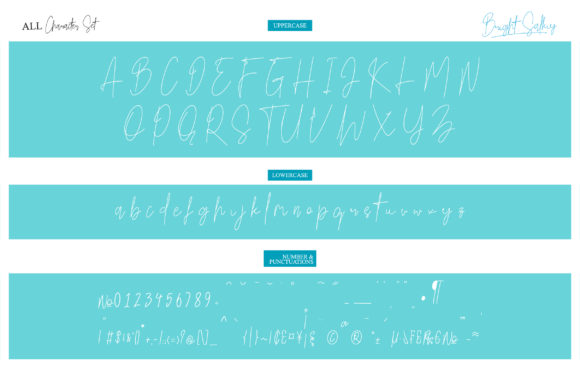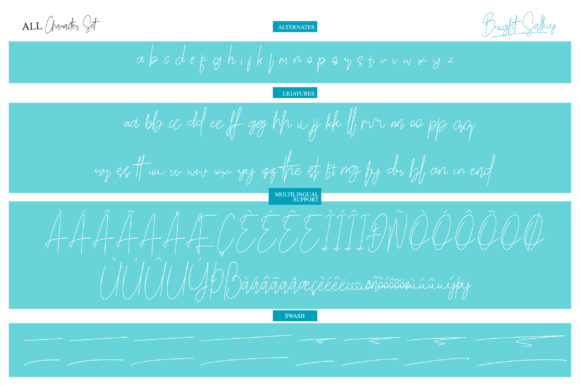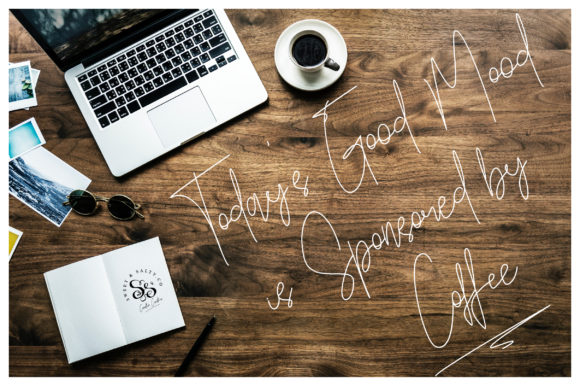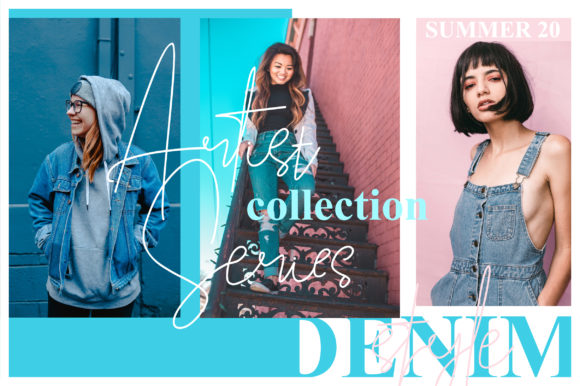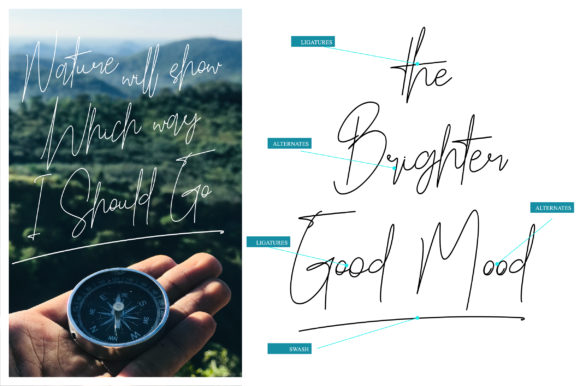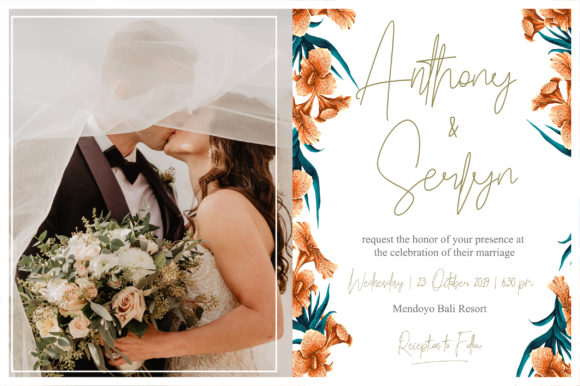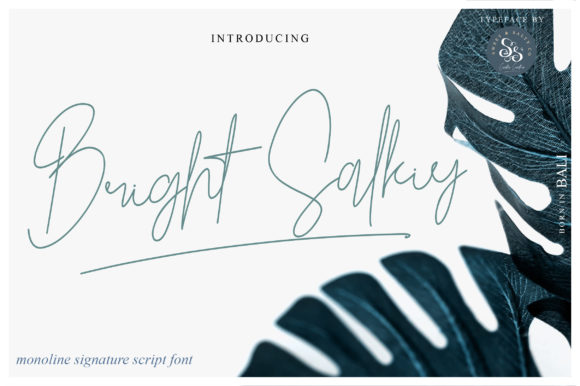
Introducing Bright Salkiy Font: A Magical Script Font with a Touch of Elegance
In the world of typography, fonts play a crucial role in conveying the tone and personality of a design. For designers and crafters, finding the perfect font can be a daunting task. However, if you’re looking for a font that exudes timeless elegance and authentic calligraphy, look no further than Bright Salkiy Font. In this article, we’ll dive into the features and benefits of Bright Salkiy, and explore why it’s the perfect font for making original and outstanding designs.
What is Bright Salkiy Font?
Bright Salkiy is a magical script font carefully crafted with a touch of elegance. This beautiful font combines the best of both worlds – timeless elegance and authentic calligraphy. With its incredibly classic style, Bright Salkiy is sure to add a touch of sophistication to any design. Yet, despite its classic feel, it still maintains a friendly and approachable tone, making it perfect for a wide range of design projects.
Key Features of Bright Salkiy Font
So, what makes Bright Salkiy font stand out from the rest? Here are some of its key features:
- Timeless Elegance: Bright Salkiy boasts a classic style that never goes out of fashion. Its elegant strokes and beautiful letterforms make it perfect for designs that require a touch of sophistication.
- Authentic Calligraphy: With its authentic calligraphy feel, Bright Salkiy adds a personal touch to any design. Its flowing strokes and cursive letterforms give it a unique and distinctive look.
- Friendly Feel: Despite its classic style, Bright Salkiy still maintains a friendly and approachable tone. This makes it perfect for designs that require a more approachable and inviting feel.
- Versatility: Bright Salkiy is a versatile font that can be used for a wide range of design projects, from wedding invitations and branding materials to social media graphics and more.
Why Choose Bright Salkiy Font?
So, why should you choose Bright Salkiy font for your next design project? Here are just a few reasons:
- Stand Out from the Crowd: With Bright Salkiy, you can create original and outstanding designs that stand out from the crowd. Its unique and distinctive look is sure to grab attention and leave a lasting impression.
- Easy to Read: Despite its elegant and cursive feel, Bright Salkiy is surprisingly easy to read. This makes it perfect for designs that require a clear and concise message.
- Customizable: Bright Salkiy is a highly customizable font, allowing you to adjust its size, color, and style to fit your design needs.
How to Use Bright Salkiy Font?
Using Bright Salkiy font is easy! Here are a few tips to get you started:
- Pair it with Other Fonts: Bright Salkiy pairs well with other fonts, making it easy to create stunning font combinations. Try pairing it with a bold sans-serif font for a striking contrast.
- Experiment with Colors: Bright Salkiy looks great in a variety of colors. Experiment with different colors and shades to find the perfect fit for your design.
- Use it for Headings and Titles: Bright Salkiy is perfect for headings and titles, where its elegant and cursive feel can really shine.
In conclusion, Bright Salkiy font is a magical script font that offers a unique combination of timeless elegance and authentic calligraphy. With its incredibly classic style and friendly feel, it’s the perfect font for making original and outstanding designs. Whether you’re a designer or crafter, Bright Salkiy is sure to become a valuable addition to your font collection. So why wait? Give Bright Salkiy a try today and see the difference it can make in your designs!